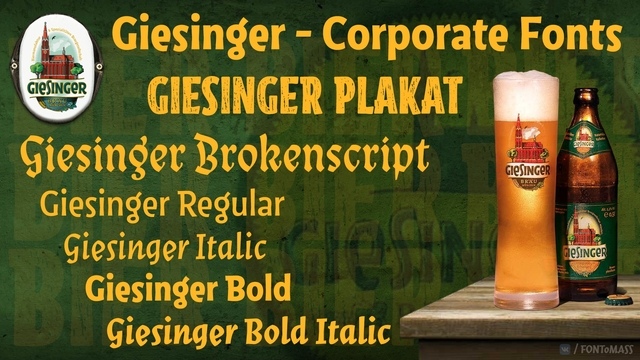
Giesinger - Corporate Fonts
Giesinger - Corporate Fonts is perfect for professional business communications, multinational corporation branding, executive presentations, annual reports, financial services marketing, and enterprise-level documentation. This authoritative typeface excels in boardroom presentations, corporate headquarters signage, investor relations materials, and any application where corporate gravitas and international business standards create credible institutional presence.
What makes Giesinger - Corporate Fonts so exciting is its exceptional ability to convey corporate authority and global business sophistication through meticulously engineered letterforms designed for maximum impact. The font features balanced proportions, optimized readability, and professional character that commands respect in the most demanding business environments. Its versatile design adapts seamlessly across cultures and languages while maintaining consistent corporate identity.
Giesinger - Corporate Fonts comes in a comprehensive corporate family including Thin, Light, Regular, Medium, Bold, and Heavy weights. Each style features complete uppercase and lowercase character sets, international symbols, corporate numerals, and business-appropriate punctuation marks. The font family also includes condensed variants, italic styles, and multilingual support that provide global organizations with complete typographic solutions for worldwide communications.
The font's corporate authority makes it particularly effective for Fortune 500 companies, international consulting firms, global financial institutions, and multinational corporations. Its exceptional versatility ensures that Giesinger - Corporate Fonts performs consistently across all business applications while maintaining its distinctive professional character. The font's ability to inspire confidence and communicate corporate excellence makes it an essential asset for any organization requiring typography that represents the highest standards of international business communication and global corporate leadership.